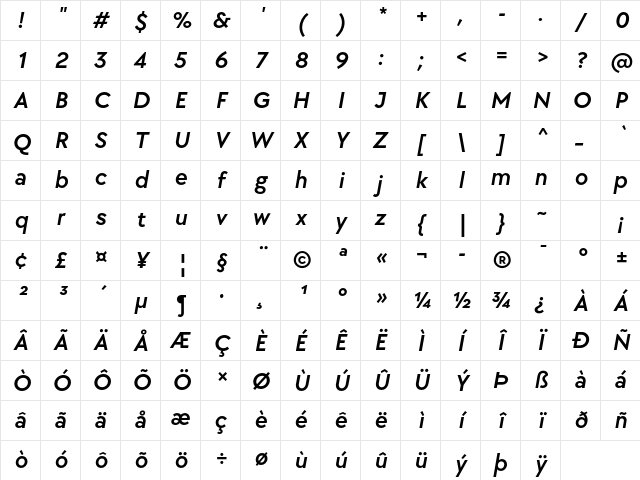
TT Chocolates Trl DemiBold Italic
Style: DemiBold Italic
Foundry: Typetype
Designer: TypeType
Design Context for TT Chocolates Trl
TT Chocolates Trl is a composed and adaptable typeface that performs quietly and consistently across a wide range of design contexts. The slanted form adds forward momentum and visual energy. Its bold stroke weight gives it real presence on the page.
Pro Tip: Use TT Chocolates Trl for emphasis, pull quotes, and subheadings where its slanted energy can add rhythm to the layout.
Who designed the TT Chocolates Trl DemiBold Italic font?